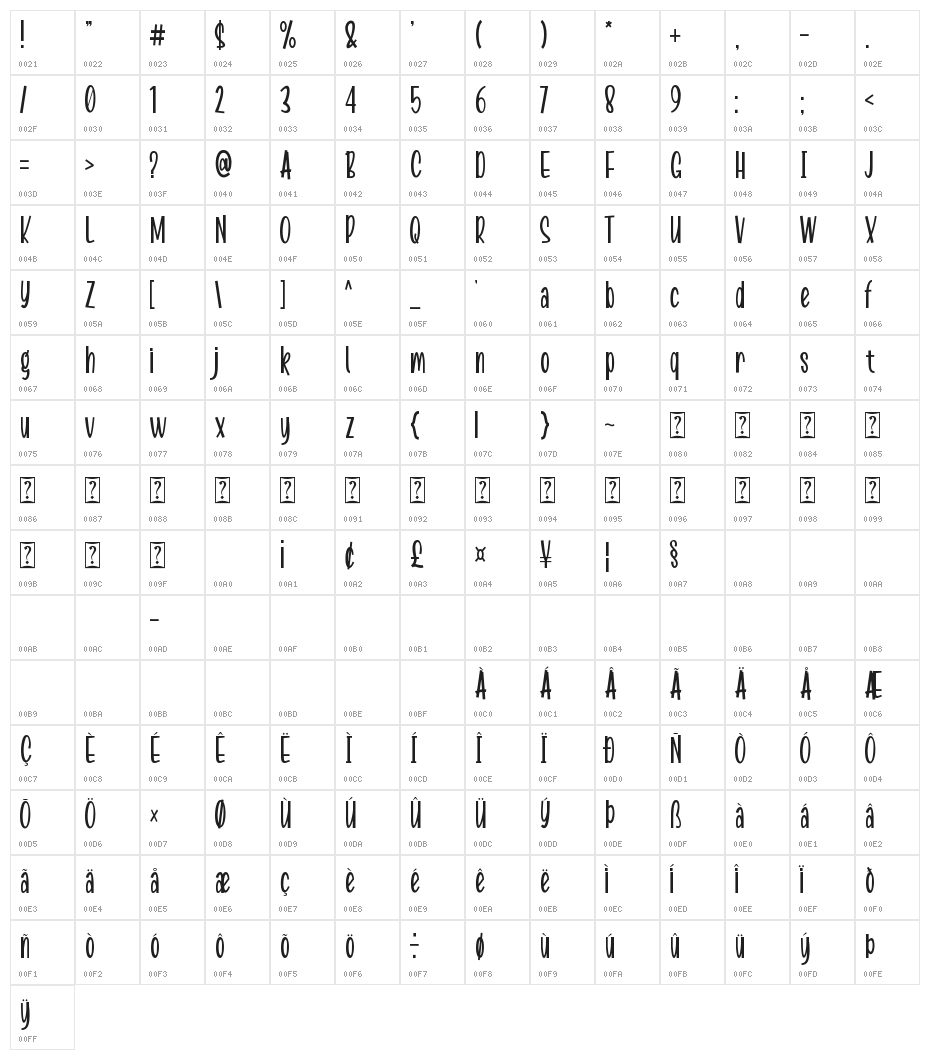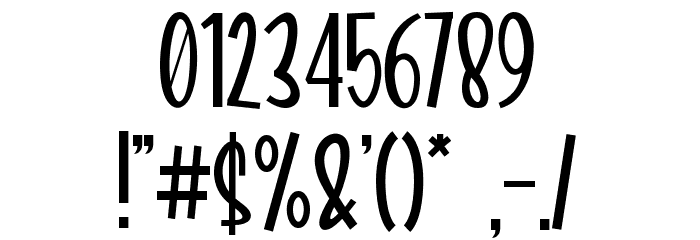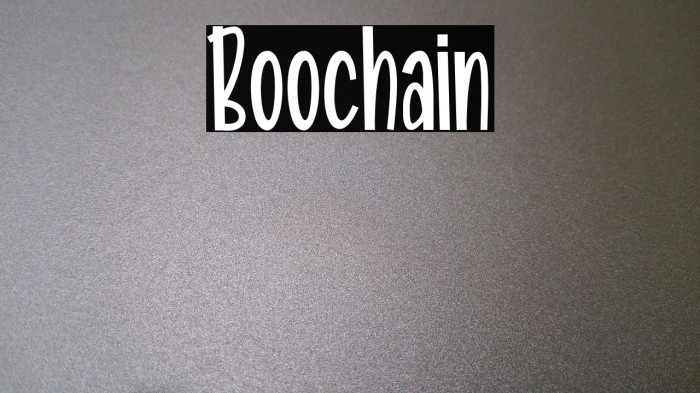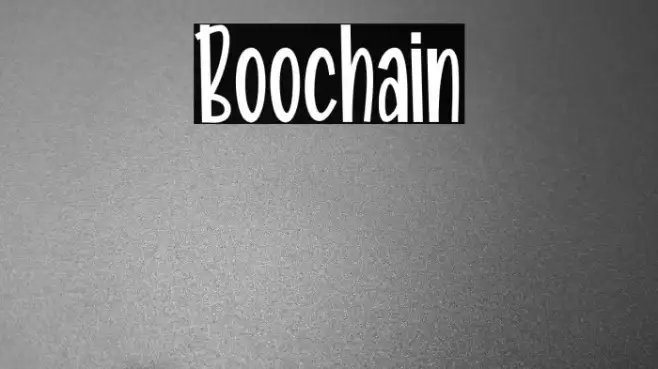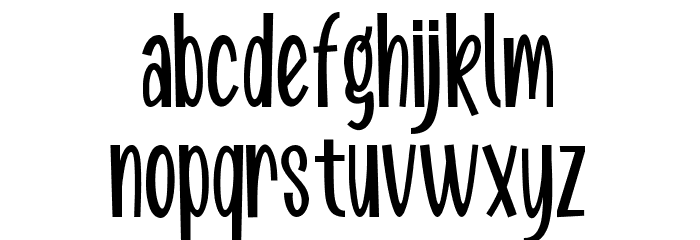
Boochain Font
Boochain Description
This font features a playful and whimsical style, characterized by its tall, narrow letters with a slightly irregular baseline, giving it a hand-drawn appearance. The uppercase letters are bold and prominent, while the lowercase letters maintain a consistent height, adding to the font's quirky charm. The numbers and special characters are designed to match the playful aesthetic, making them suitable for creative and informal designs. The overall look is both modern and fun, making it ideal for projects that require a touch of personality and flair.
| Width | Condensed |
| Overall Style | Playful |
| Proposed Projects | Ideal for children's books, greeting cards, playful branding, and creative posters. |